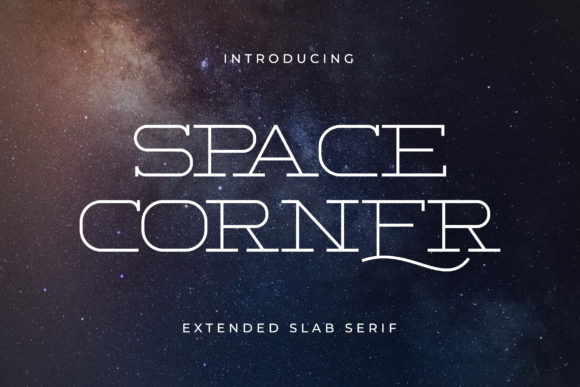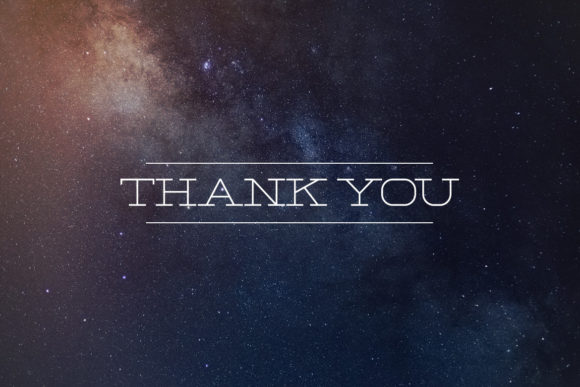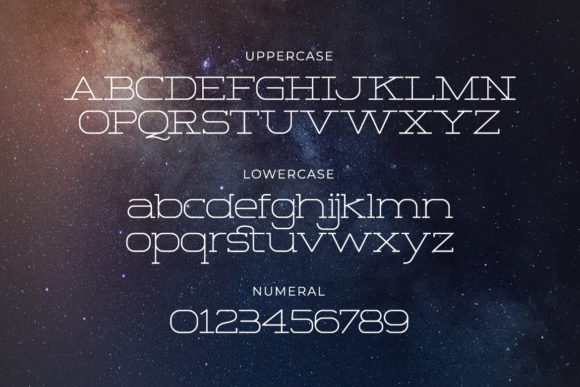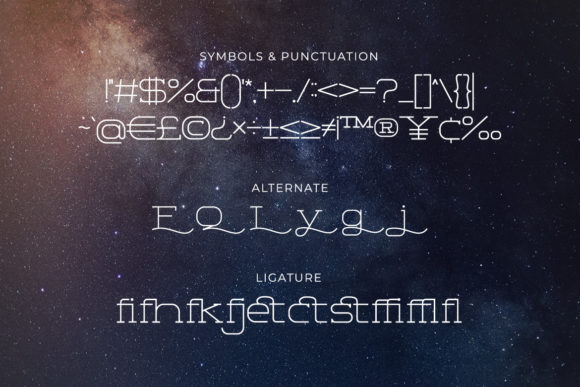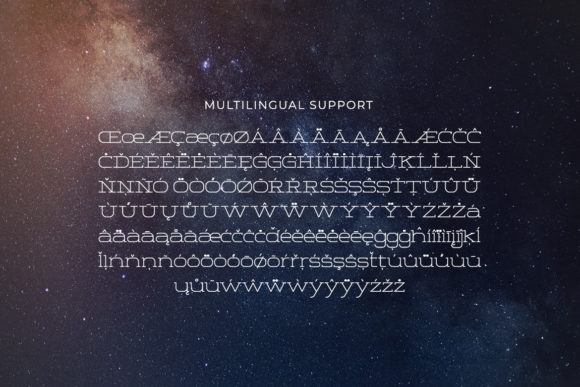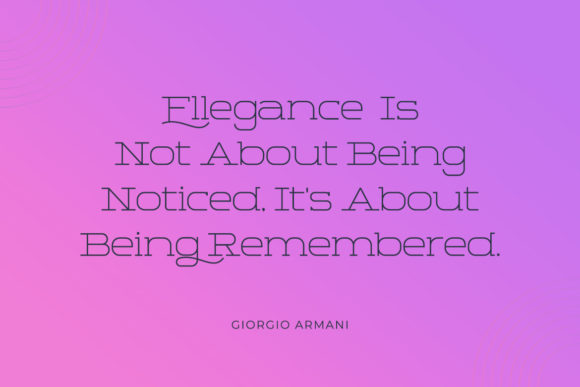
Space Corner Font
Space Corner is a clean and modern looking slab serif font. Add this minimalist and techno styled font to your web designs, logos or pretty much anything that requires a smart, cool touch.